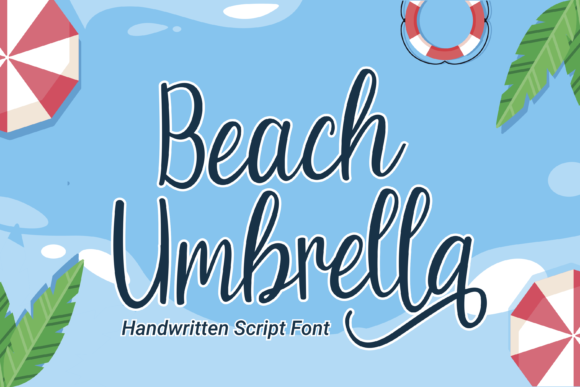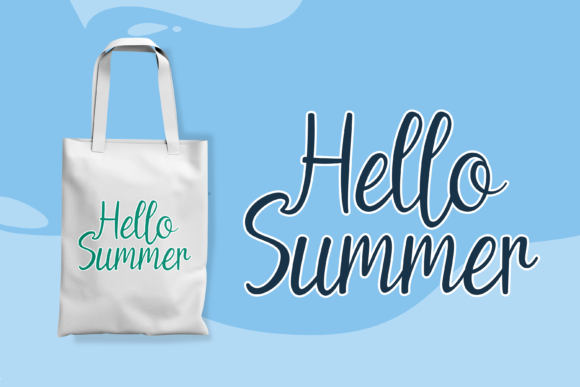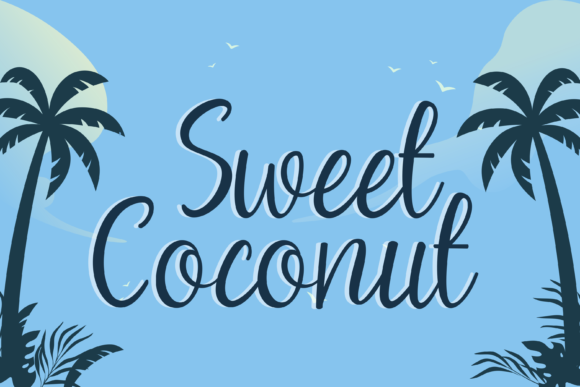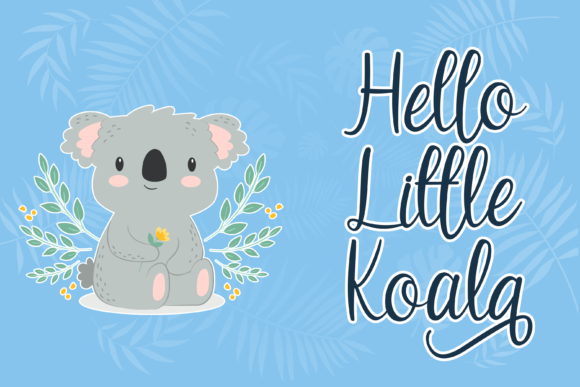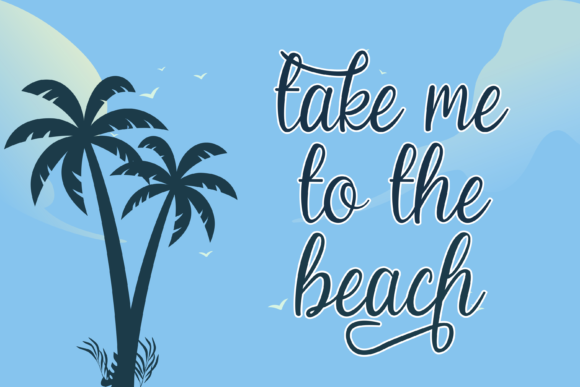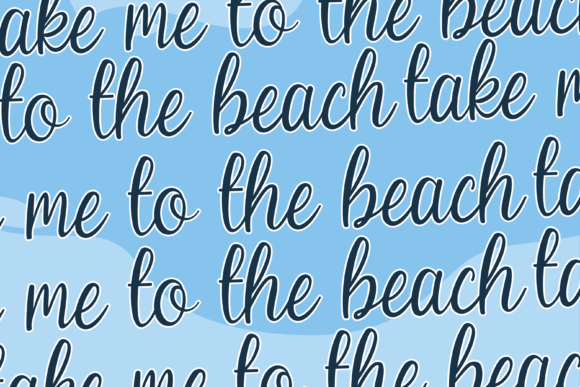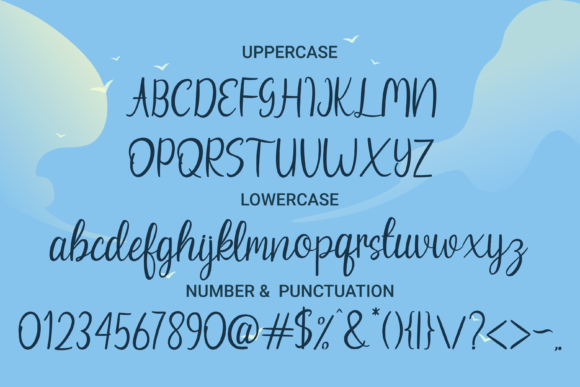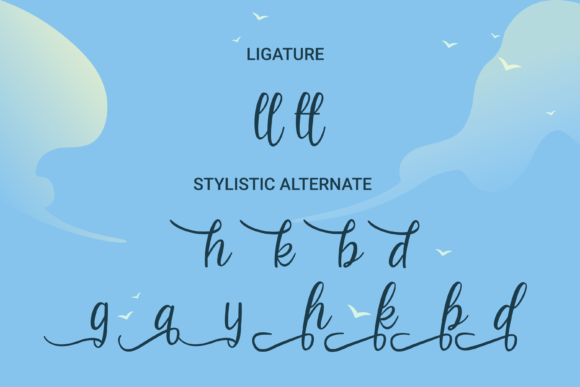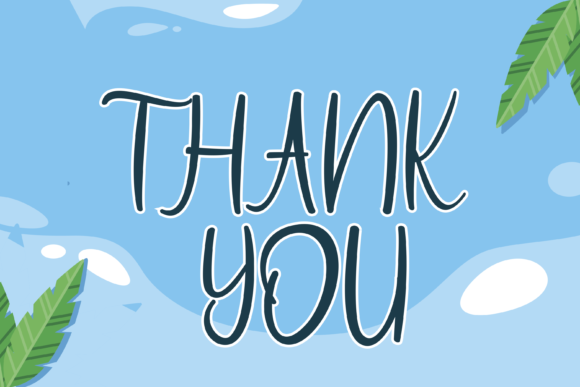
Beach Umbrella Font
About Beach Umbrella Font
Beach Umbrella is a cute handwritten font. It has an elegant and modern look that can be used for logos, branding, invitations, stationary, wedding designs, social media posts, and much more!